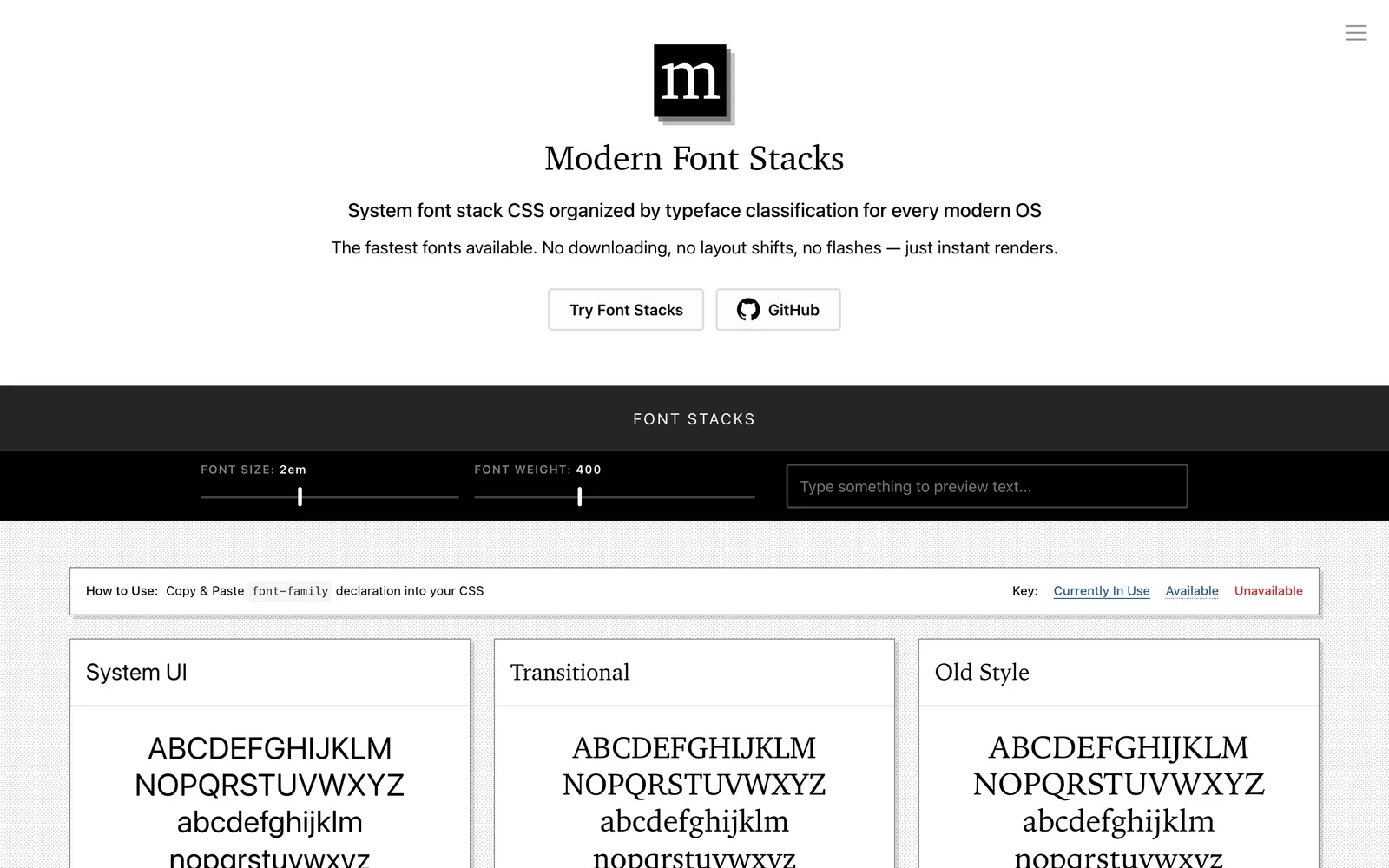
About Modern Font Stacks
Modern Font Stacks: Modern Font Stacks Overview
Modern Font Stacks is a curated resource of system font stacks that use fonts already installed on users' devices. Because nothing is downloaded, pages render type instantly with zero load cost — and each stack is grouped by style, from classic to monospace.
Key Features
- Zero-load typography: Use fonts already on the device for instant rendering.
- Categorized stacks: Grouped by style: geometric, humanist, classical, slab, mono, and more.
- Copy-ready CSS: Grab the font-family declaration in one click.
- Cross-platform tested: Stacks chosen to look good across operating systems.
Conclusion
Modern Font Stacks champions fast, dependency-free typography, offering well-chosen system stacks that load instantly and look great everywhere.